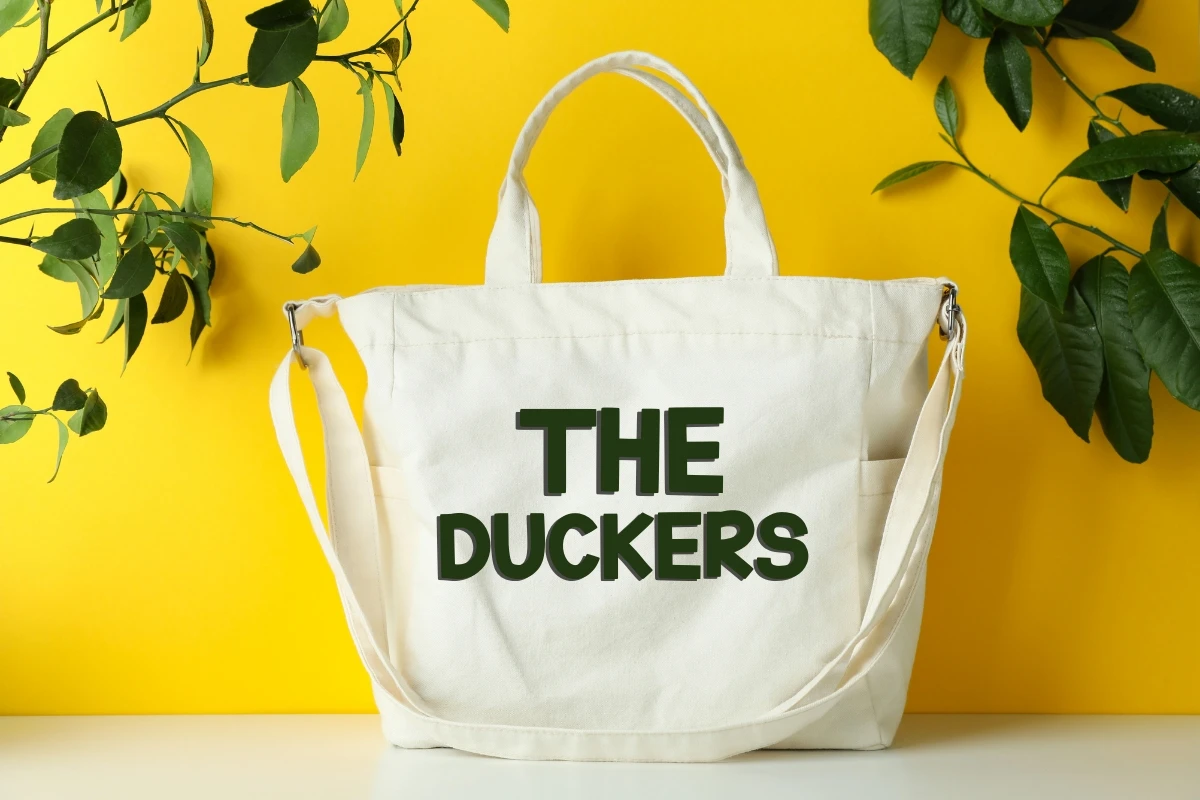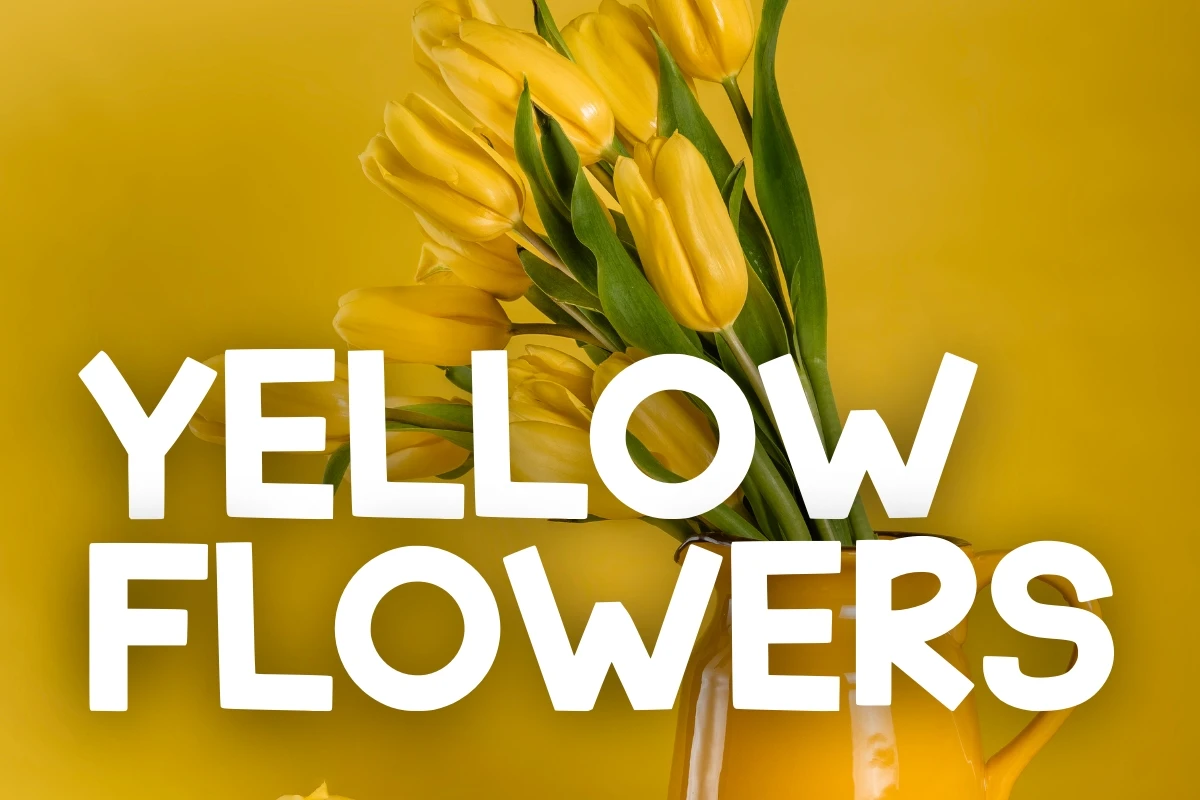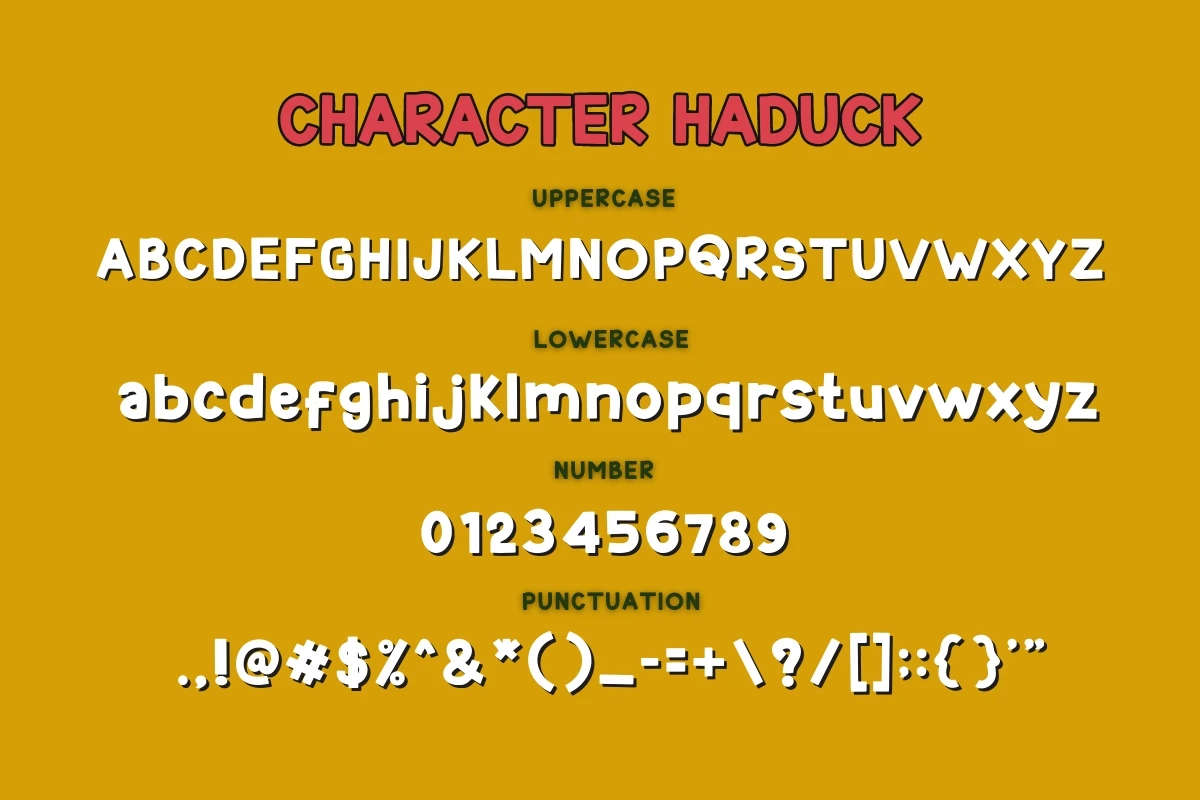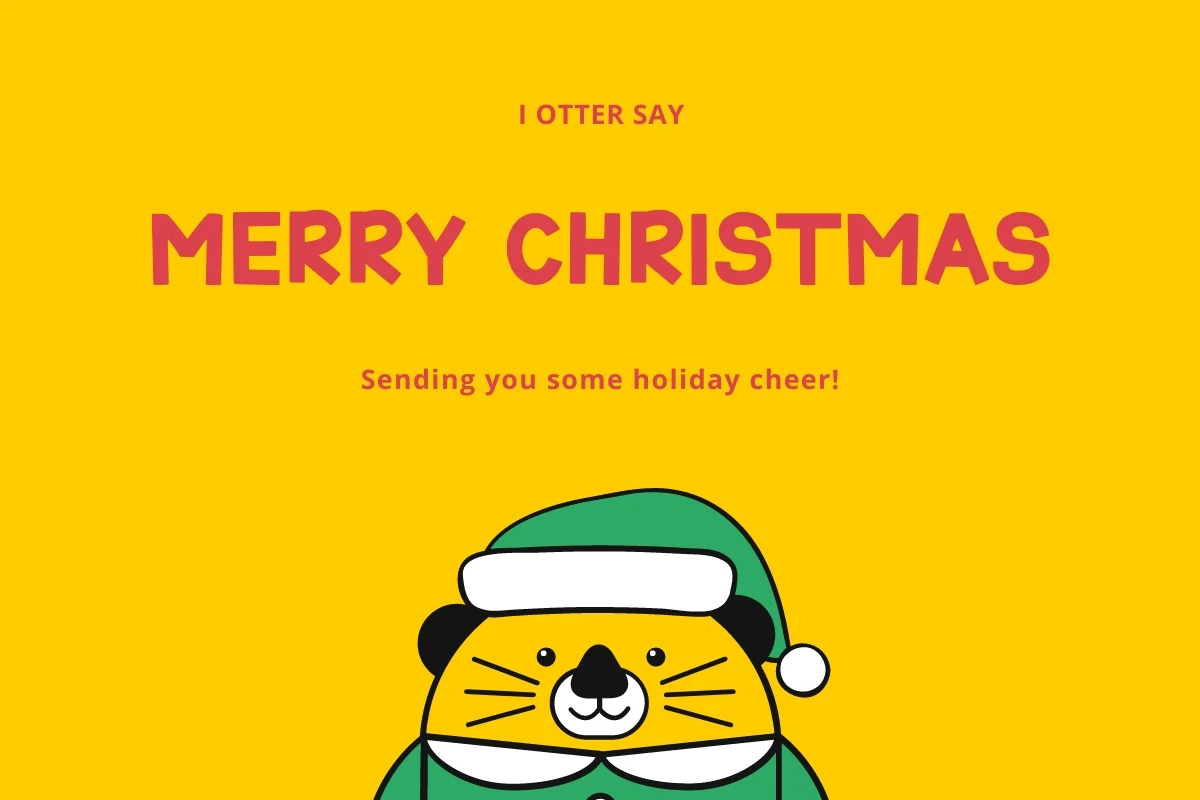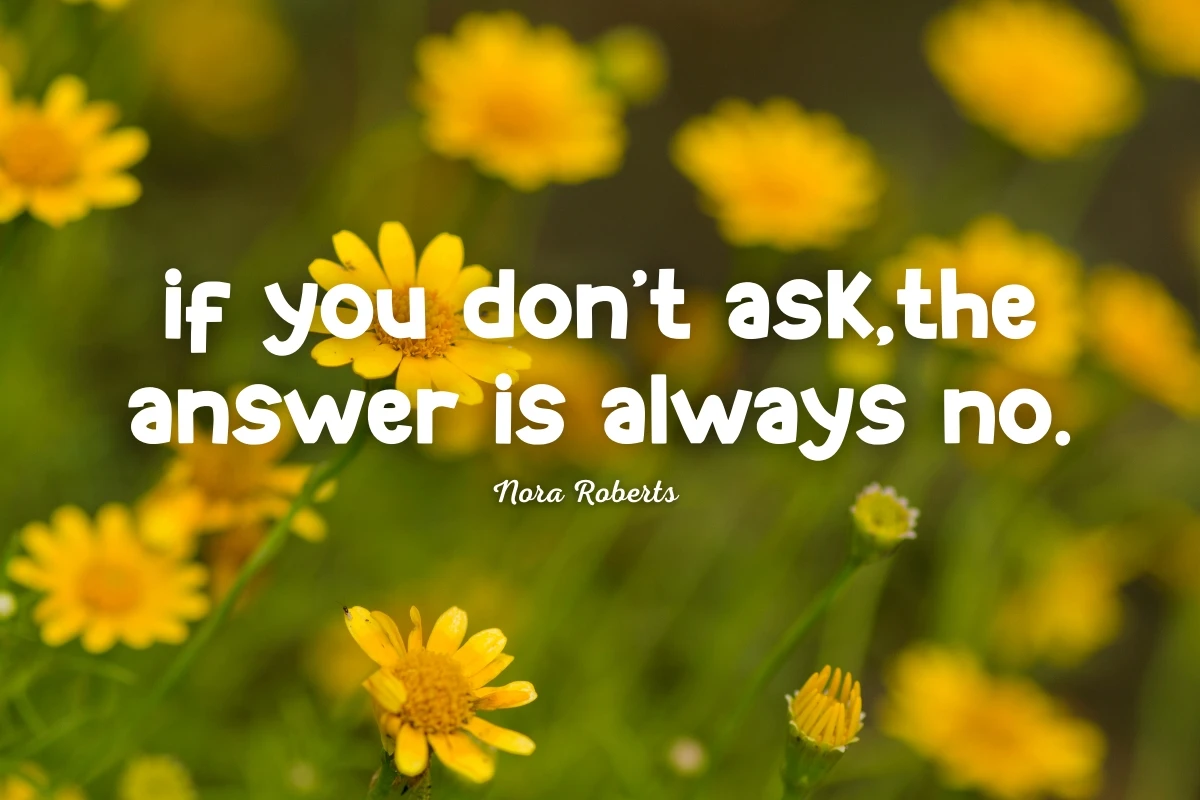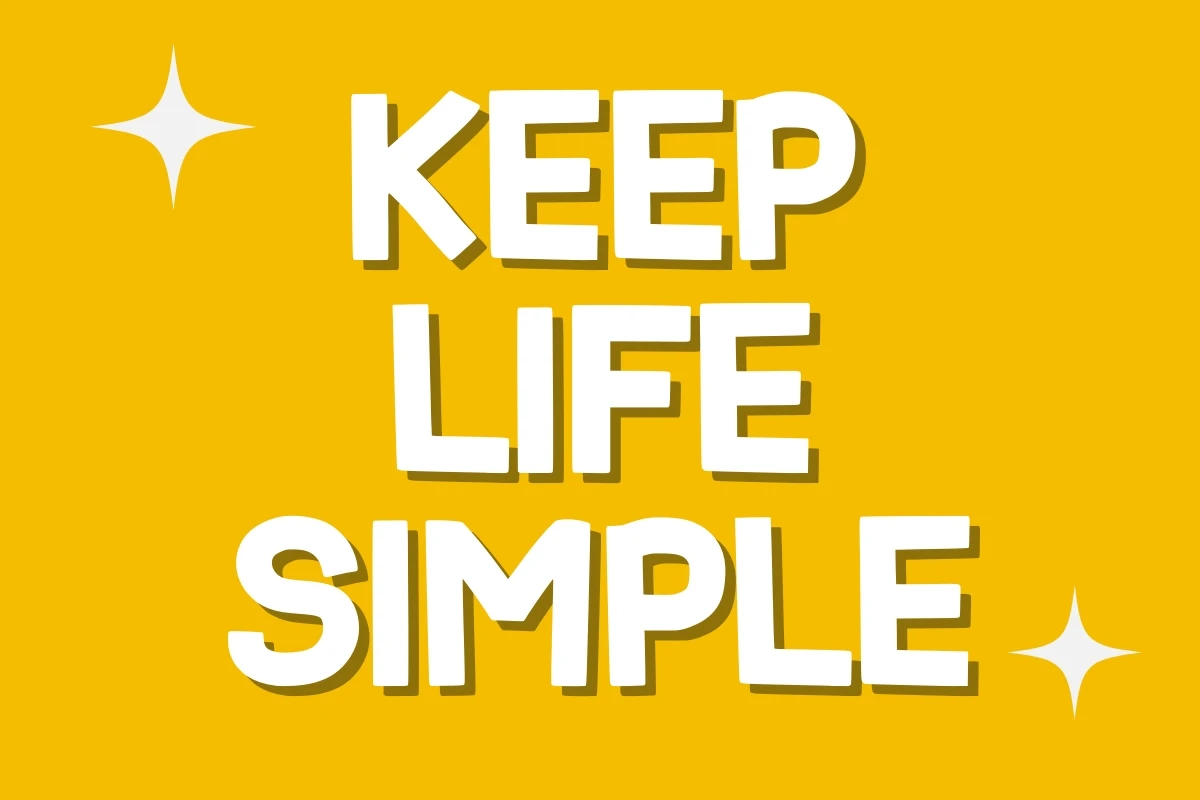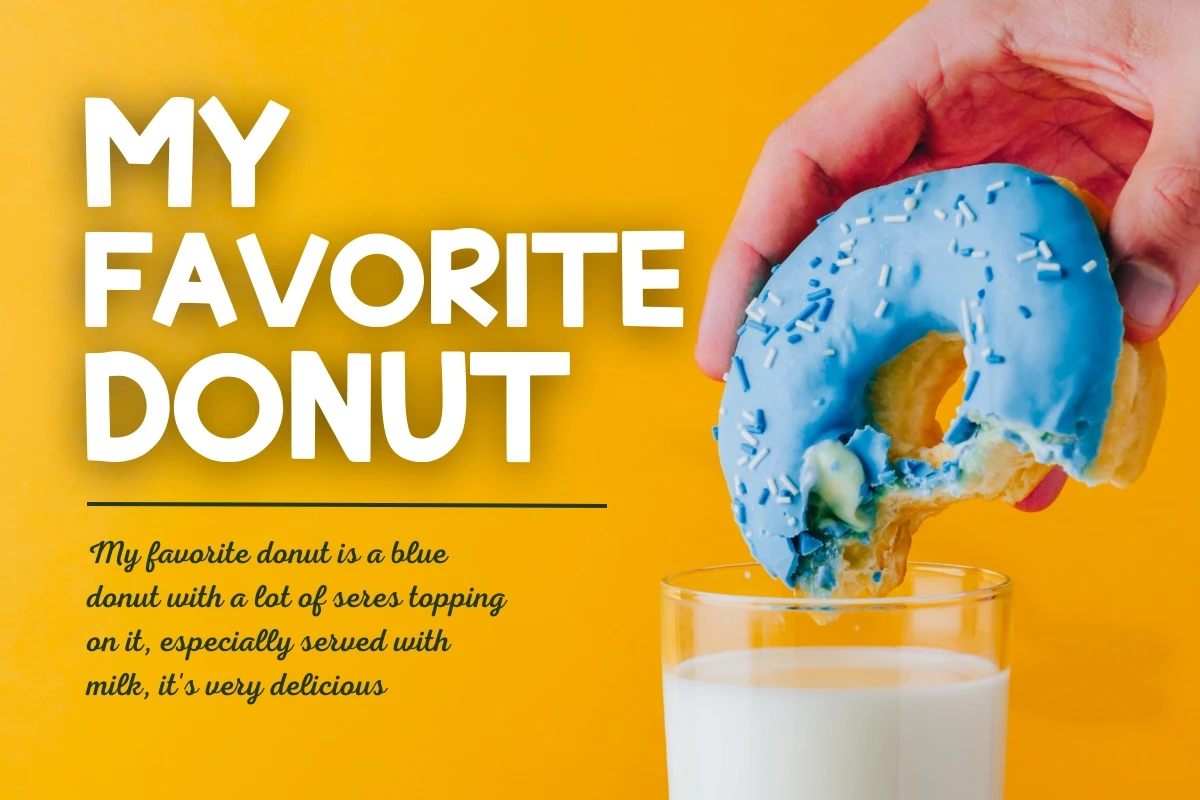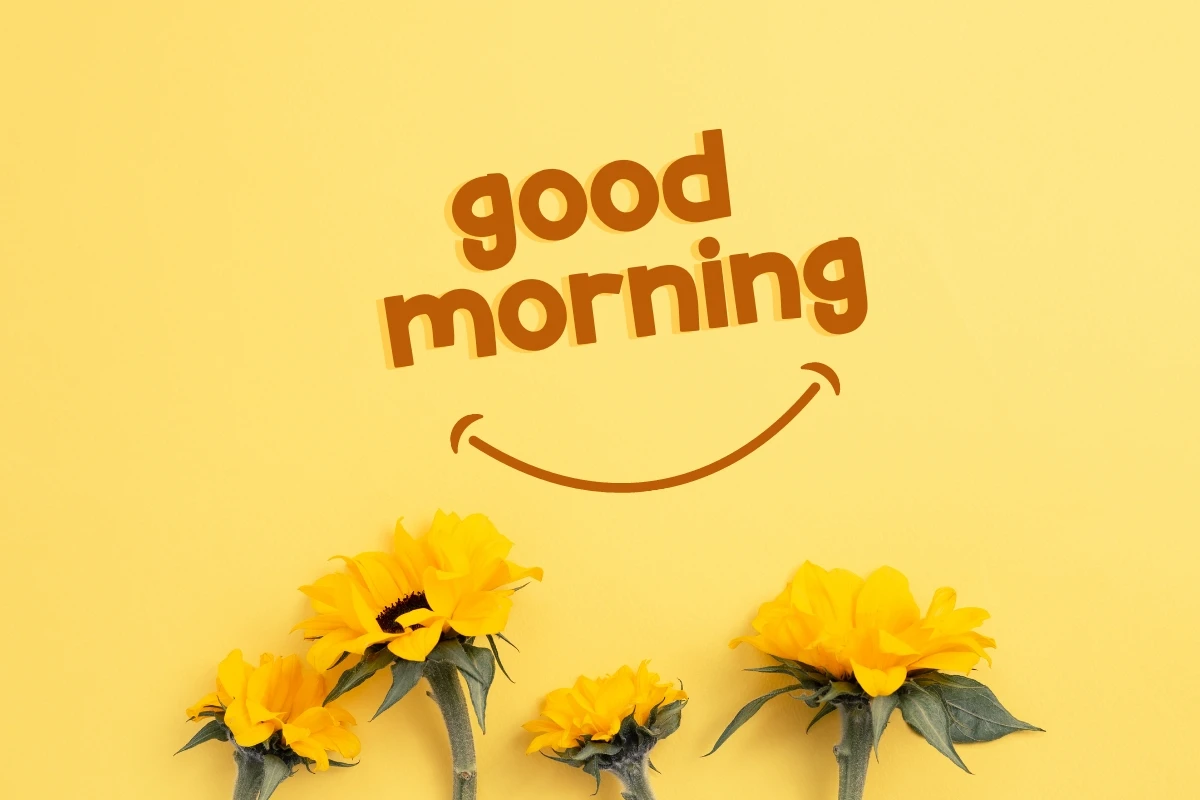
Handuck is a cool, bold, yet whimsical, handwritten font. Add this bold font to your designs and see how it brings it to life!
Add it to any of your creative projects, and it will give you a romantic and beautiful look. Get inspired by her unique and beautiful style and add it to your favorite designs!